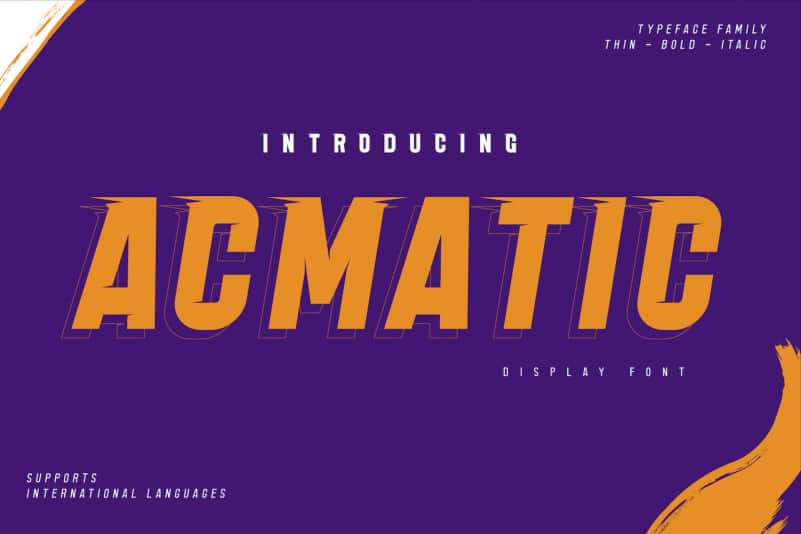
Acmatic Font
Acmatic Display Font
Acmatic Display Font is designed to answer the needs of a beautiful and unique project.
Acmatic Display Font is perfect for gaming, sports events, branding, banners, posters, movie titles, book titles. This font is suitable for your various design projects because this font is equipped with a font family that complements each other, both for titles and sub-titles and sentence text. start using Acmatic font for your extraordinary project.